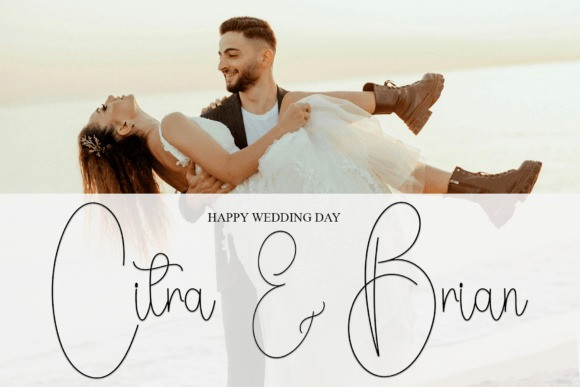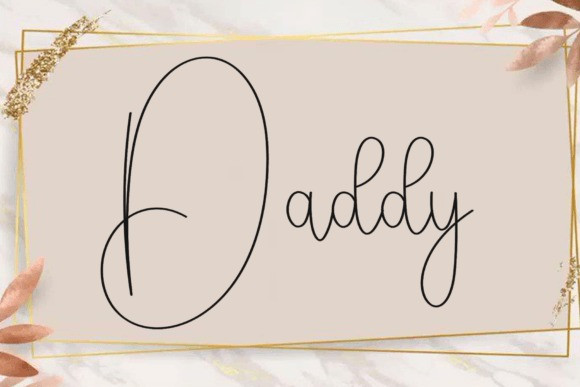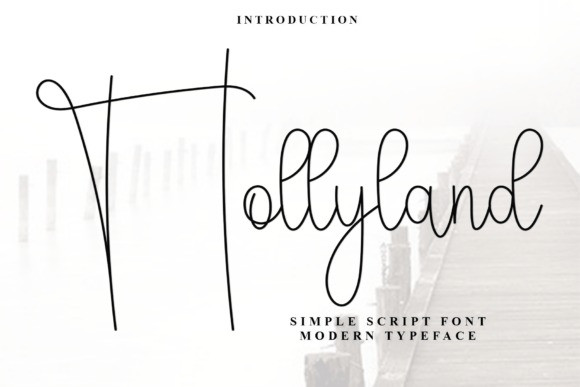
Hollyland Script Font
Hollyland Script Font – Add elegance and sophistication to your designs with this modern handmade script font featuring smooth curves and graceful swashes. Perfect for wedding invitations, branding, logos, and upscale projects, this font exudes charm and timeless beauty.